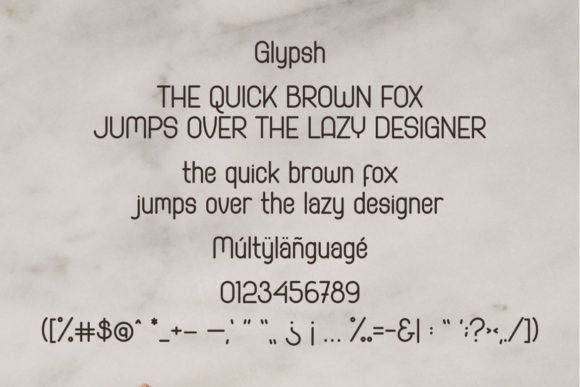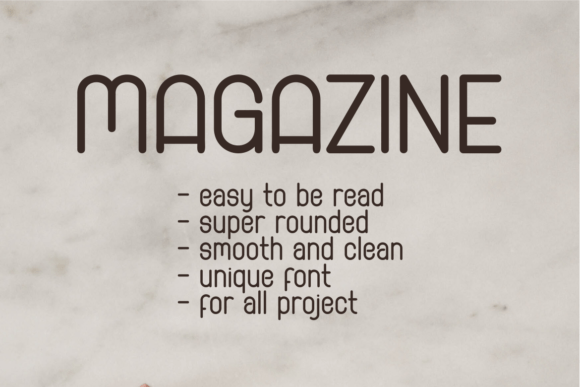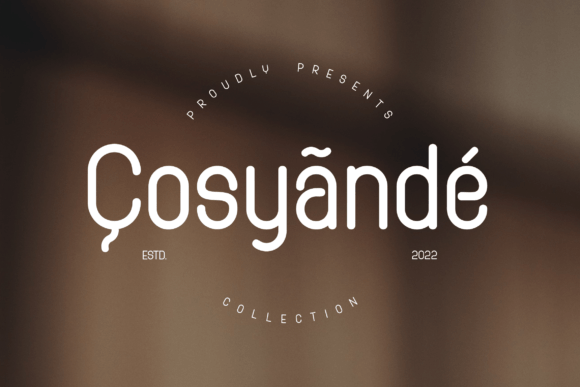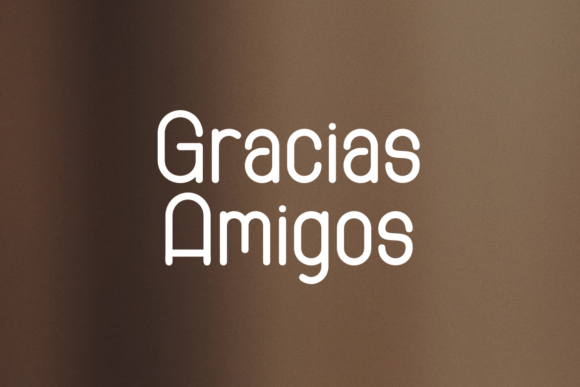
Introduction to Cosyande Font
Cosyande is a classy and soft, super rounded monoline sans serif font.
With its neat and elegant look, this font is perfect for a wide pool of design ideas .
Key Features of Cosyande Font
Why Choose Cosyande Font?
Cosyande Font offers exceptional quality and versatility, making it a valuable addition to your design toolkit. Whether you’re creating for personal projects or commercial use, Cosyande Font delivers professional results.